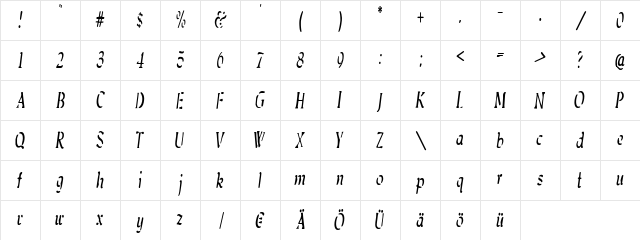
SoftAutumn Regular
Design Context for SoftAutumn
SoftAutumn is a composed and adaptable typeface that performs quietly and consistently across a wide range of design contexts.